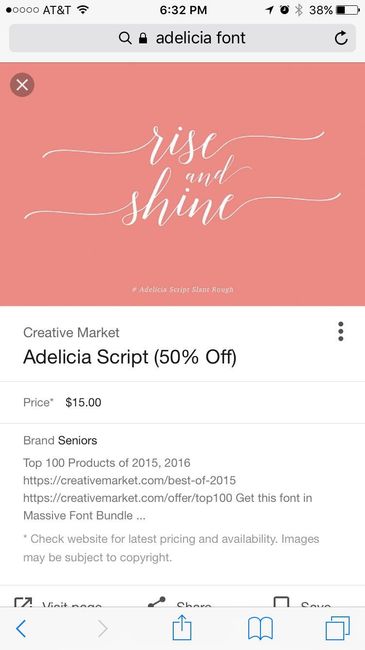
Does anyone know this font?
It might be a long shot, but does anyone know the name of this font or another font that is similar and where I can download it from? I downloaded a lot of cute fonts, but this one is screaming my name. I just love it. I don't know if it's totally freehand or if it is actually available for download. I want to use it to make a Mr. And Mrs. Our last name sign. Thanks!
Stea on dafont.com is kind of similar
Dancing Script or any of the other ones mentioned are definitely not similar. Scriptina is also a very distinctive font. This is more of a calligraphic typeface rather than script.
It might be hand lettered by a calligrapher. You can look on creativemarket.com for a similar font if you don't mind purchasing it. Dafont.com might have some also, but I'm not really a fan of it because a lot of the downloads are demos or not good quality, or they have limited licensing.
I might have solved my own question haha. Adelicia looks super similar!